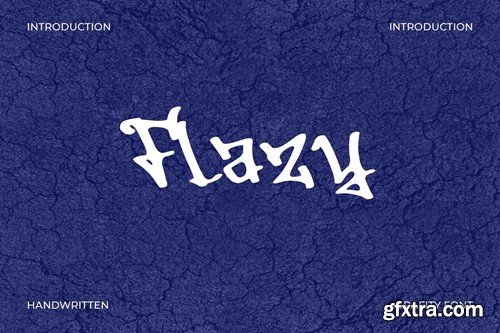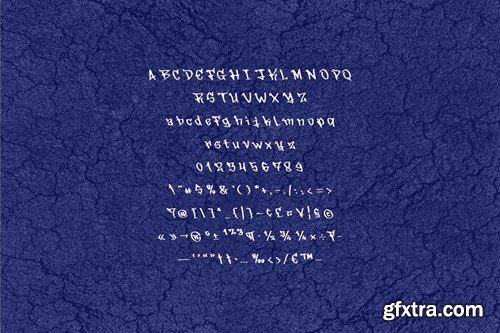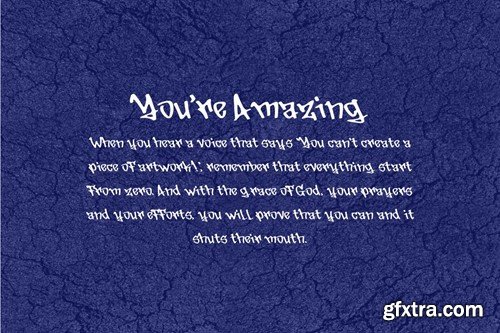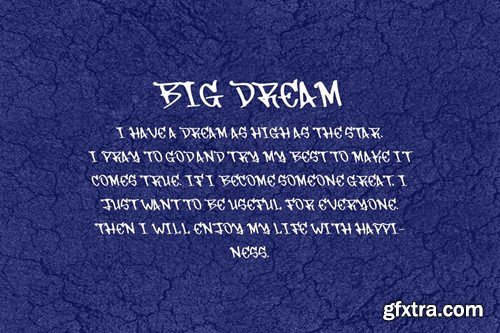
Flazy - 番茄体 H292F9K
Introducing Flazy, a strikingly vibrant graffiti font that embodies the spirit of street art and urban creativity. Designed with precision and a keen eye for the dynamic flow of urban culture, Flazy brings an authentic slice of the city's pulse to your design projects. Whether you're aiming to infuse your work with the raw energy of the streets or add a touch of rebellious flair, Flazy is your go-to font. Flazy isn't just another graffiti font. It's a bridge between the raw, unfiltered energy of street art and the polished realm of digital design. Whether you're a designer aiming to push boundaries, a brand looking to make a bold statement, or an artist seeking to express the vibrant chaos of urban life, Flazy is your canvas. The zip file is include: Thank You!